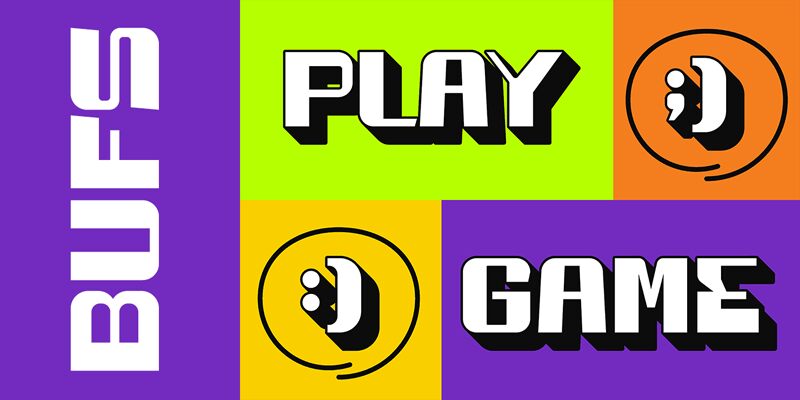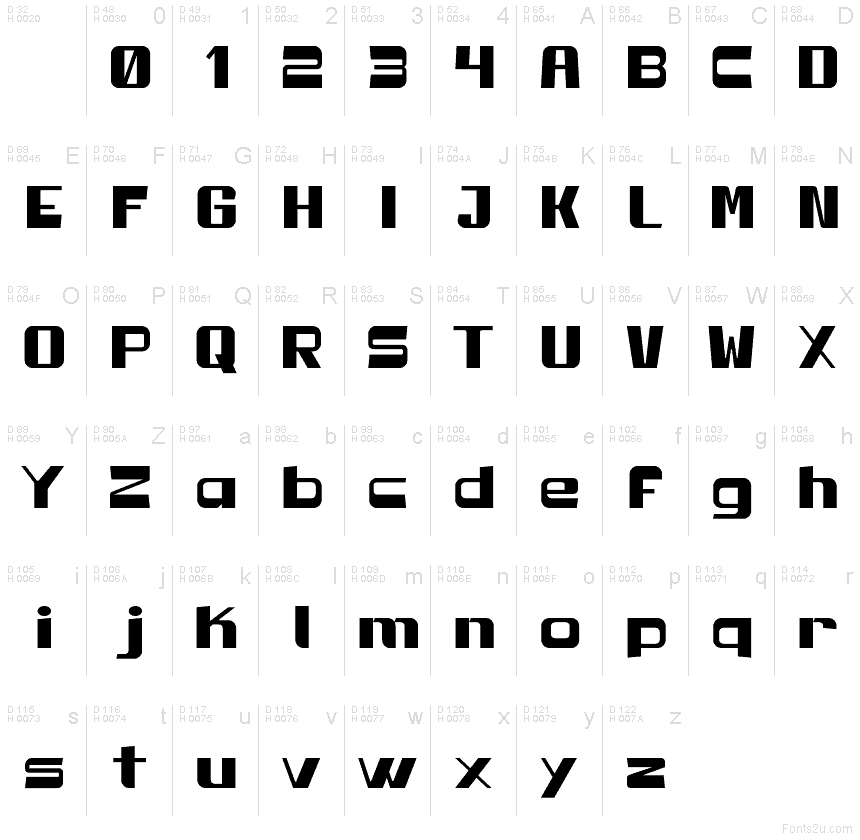
Bufs font by Muhamad Rizky Herdiansyah is a free groovy display typeface with a chunky, modular feel that lands somewhere between retro arcade lettering and bold street signage. Its wide, squared forms and tight rhythm create a strong visual block, like letters carved from solid plastic. The subtle rounding on corners softens the mass, so it reads playful instead of harsh-great when you want attitude without aggression.
Using Bufs, headlines hit like a logo: memorable, compact, and easy to spot from a distance. This free font shines on posters, merch, album covers, bold branding, social graphics, and event titles where you only need a few punchy words. Pair Bufs at large sizes with a clean geometric sans in smaller text to keep the layout readable while the heavy letters do the shouting.